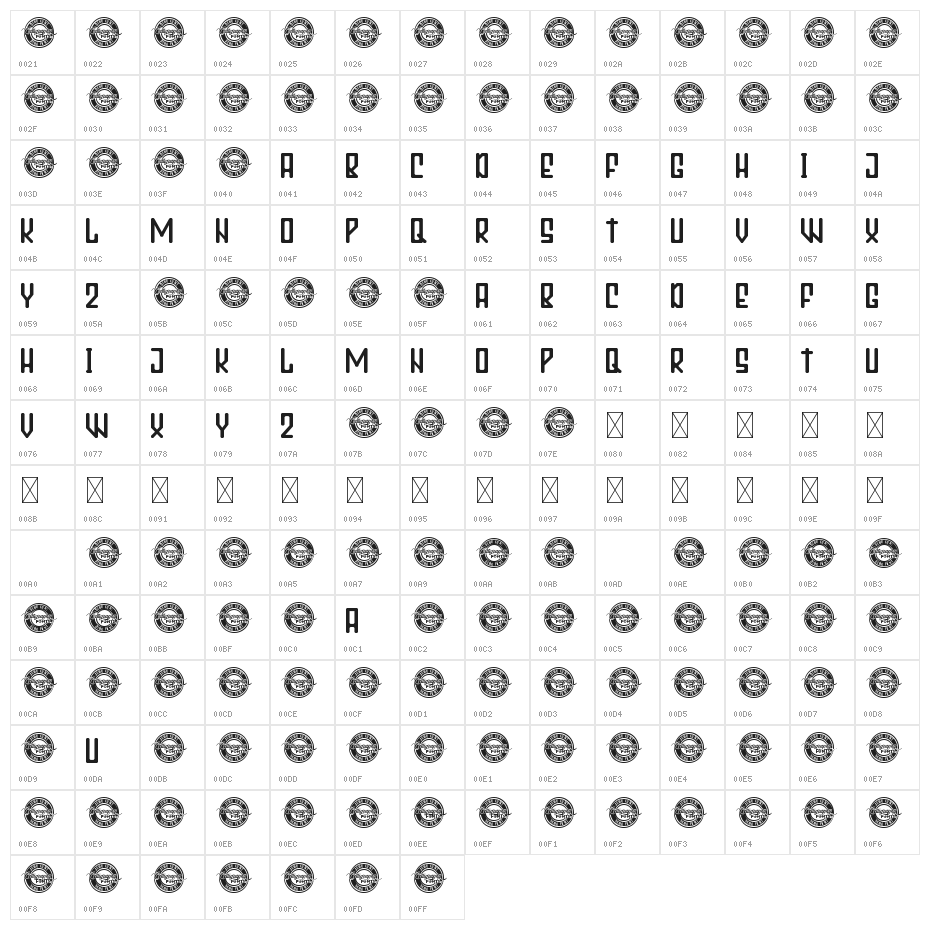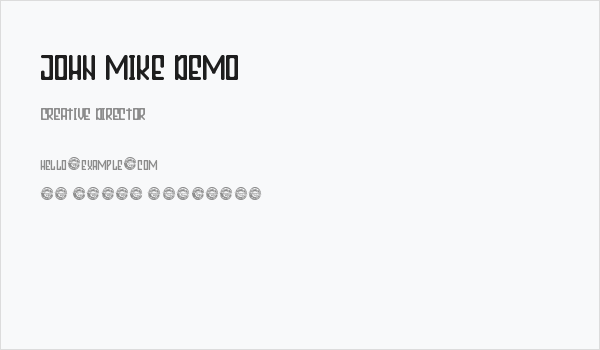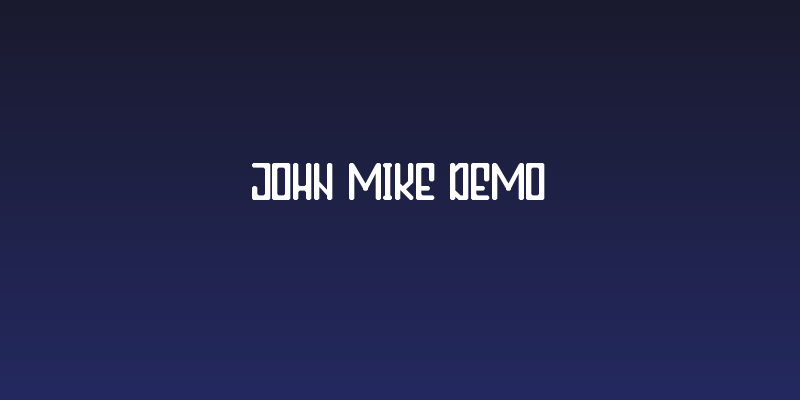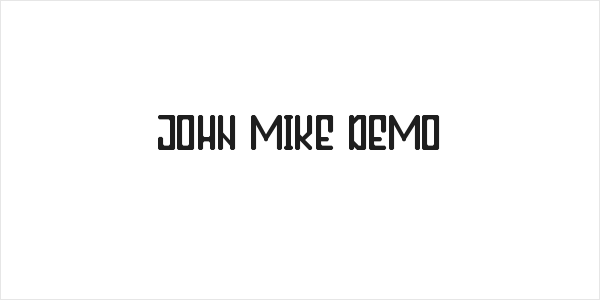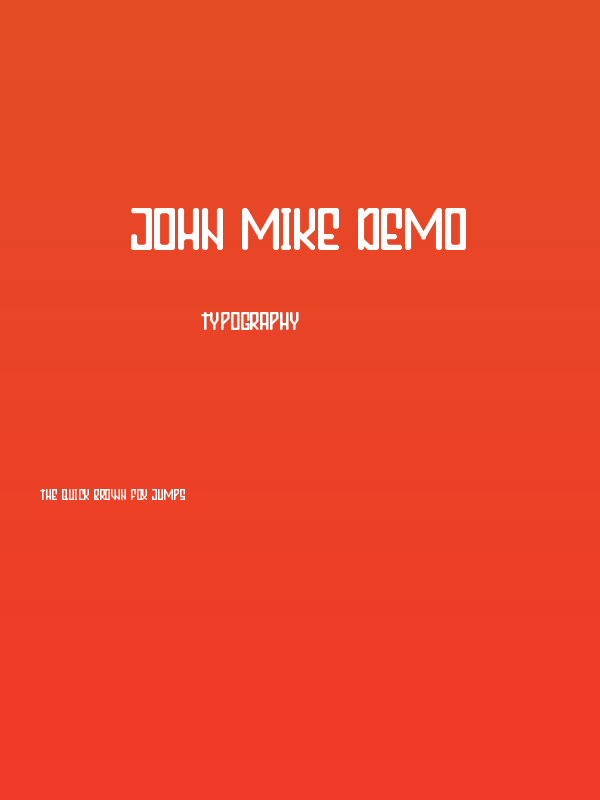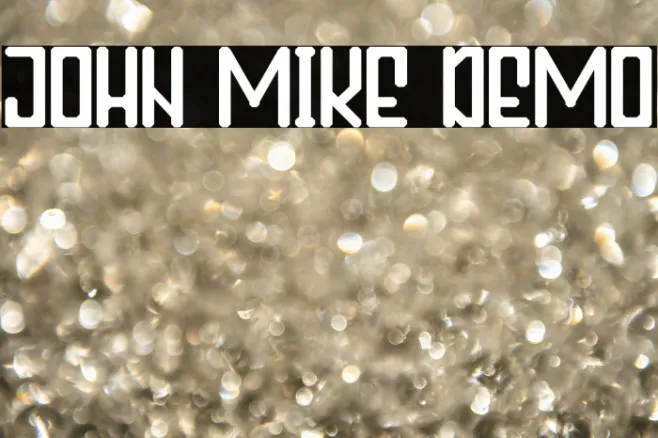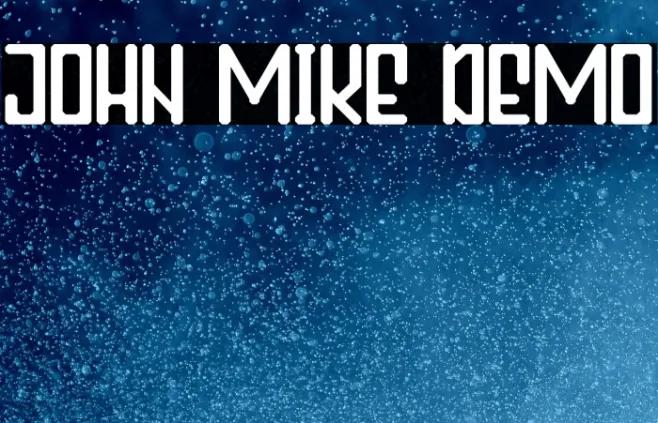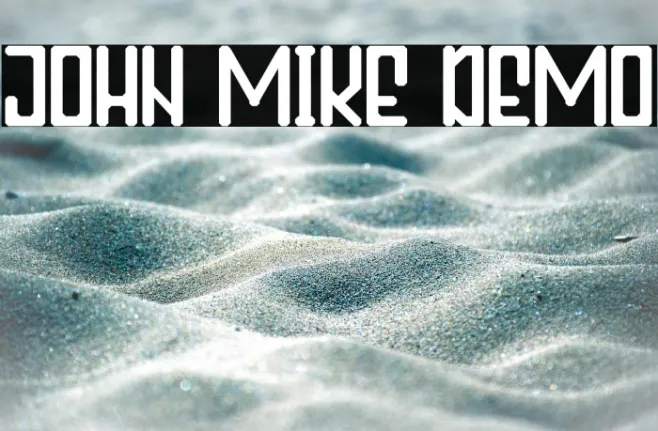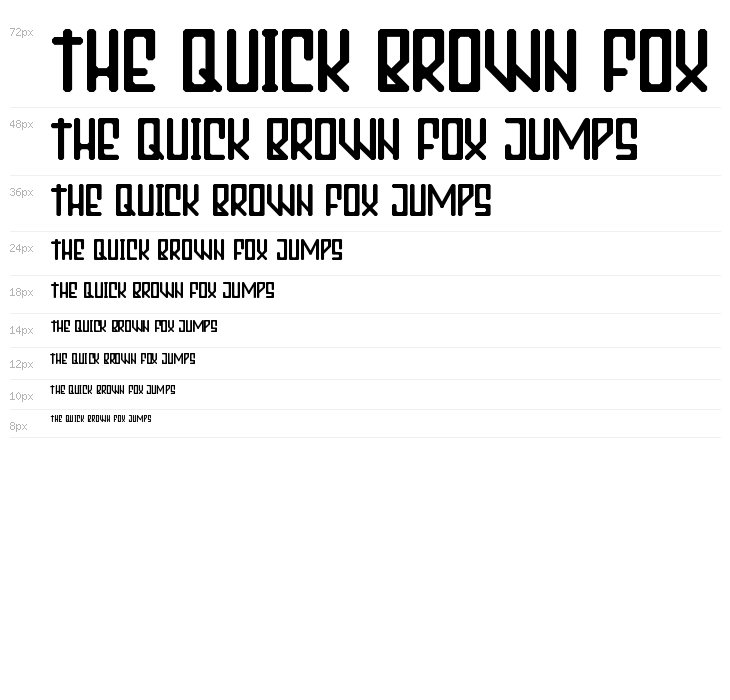
John Mike Demo Font
John Mike Demo Description
This font features a bold, geometric design with a modern and futuristic appeal. The characters are constructed with uniform stroke widths, giving it a monospaced appearance. The angular and block-like shapes of the letters create a sense of strength and stability. The uppercase letters are particularly striking, with sharp edges and a consistent height. The font's style is clean and minimalistic, making it suitable for a variety of design applications. Its unique character shapes are eye-catching, making it ideal for headlines or branding projects that require a strong visual impact.